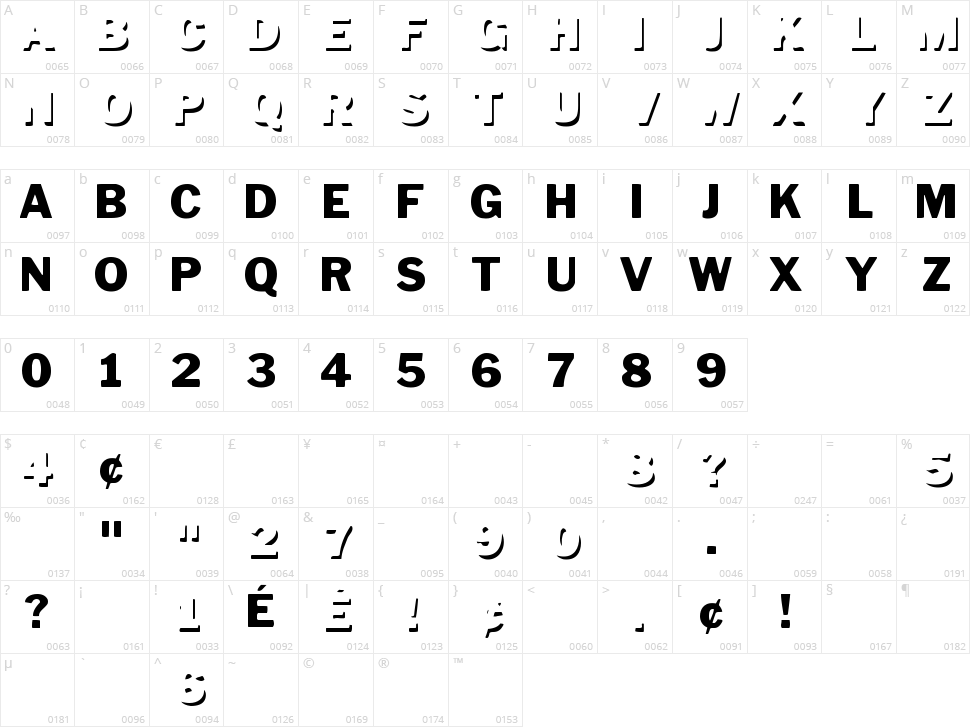
Down Town Auto
DOWN TOWN AUTO
A TrueType Font by S. John Ross
Cumberland Games & Diversions
This font is another one of my "playing games with the format" numbers, so if you're here looking for a useful typeface of some sort, you're a month early (next month, I promise)!
This is a "two-tone" font, where the master letters are mapped to the lowercase keys while the separate drop-shadows are mapped to the uppercase. If you layer the text over itself, caps on one layer and regular text on the other, they'll line up perfectly.
The real value of this experiment is that it allows the font to be colorful while embedded as a font (I make PDFs, and that means more flexibility and smaller file size). One day I'll do something more elaborate, like a three-layer medieval illuminated-caps font I've been toying with for a few months.
And until then, Down Town Auto is a fun little thing on its own, to be toyed with and tossed aside. A TrueType confection of sorts. It's a caps, numbers, and selected-punctuation font ready to amuse. Enjoy.